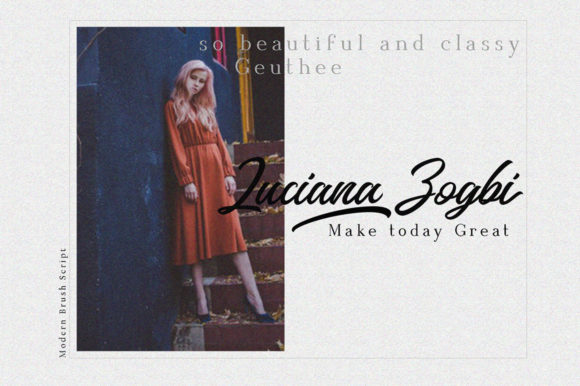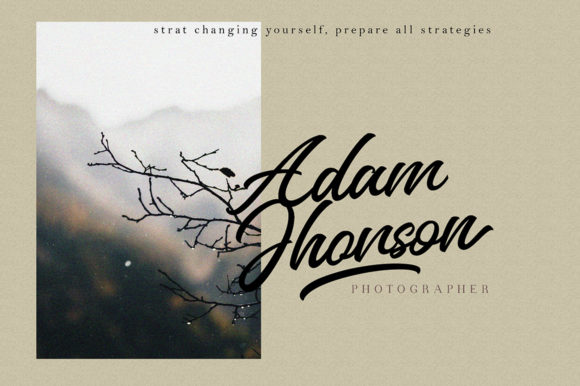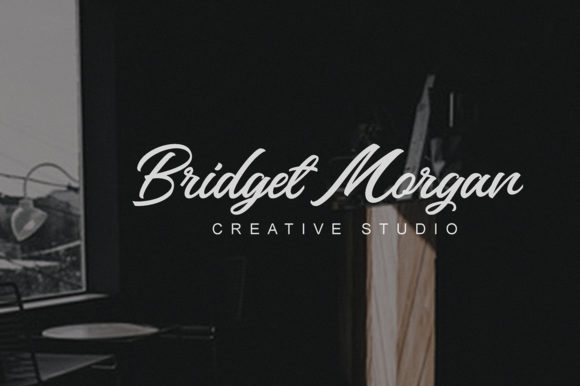
Aotria Font: Elevate Your Designs with Elegance and Sophistication
In the world of typography, fonts play a crucial role in conveying the tone and personality of a design. For designers and crafters looking to add a touch of elegance and sophistication to their work, the Aotria Font is an excellent choice. This striking handwritten font boasts an elegant touch, making it perfect for a wide range of applications, from logos and t-shirts to product packaging, headers, posters, and greeting cards.
The Aotria Font: A Brush Font with a Personal Touch
The Aotria Font is a beautiful brush font that exudes a sense of personality and charm. Its handwritten style gives it a unique and organic feel, making it stand out from more traditional fonts. The elegant touch of the Aotria Font makes it ideal for designers who want to add a touch of sophistication to their work, while its playful nature ensures that it remains approachable and engaging.
What Makes the Aotria Font So Versatile?
One of the key benefits of the Aotria Font is its versatility. This font can be used in a wide range of applications, including:
- Logos: The Aotria Font is perfect for creating elegant and sophisticated logos that make a lasting impression.
- T-shirts: Add a touch of personality to your t-shirt designs with the Aotria Font, which is sure to turn heads.
- Product Packaging: Elevate your product packaging with the Aotria Font, which adds a touch of elegance and sophistication.
- Headers: Use the Aotria Font to create stunning headers that grab attention and draw the reader in.
- Posters: The Aotria Font is perfect for creating eye-catching posters that showcase your message in style.
- Greeting Cards: Add a personal touch to your greeting cards with the Aotria Font, which is sure to make your cards stand out.
Why Choose the Aotria Font?
With so many fonts to choose from, why should you choose the Aotria Font? Here are just a few reasons:
- Unique and Eye-Catching: The Aotria Font is a unique and eye-catching font that is sure to make your designs stand out.
- Elegant and Sophisticated: The Aotria Font boasts an elegant and sophisticated style that is perfect for designers who want to add a touch of luxury to their work.
- Easy to Read: Despite its elegant style, the Aotria Font is easy to read, making it perfect for use in a wide range of applications.
- Highly Versatile: As mentioned earlier, the Aotria Font is highly versatile and can be used in a wide range of applications.
Tips for Using the Aotria Font
To get the most out of the Aotria Font, here are a few tips:
- Use it Sparingly: While the Aotria Font is beautiful, it’s best to use it sparingly to avoid overwhelming the reader.
- Pair it with Other Fonts: The Aotria Font pairs well with other fonts, so don’t be afraid to experiment with different combinations.
- Experiment with Colors: The Aotria Font looks great in a wide range of colors, so don’t be afraid to experiment and find the perfect hue for your design.
In conclusion, the Aotria Font is a stunning handwritten font with an elegant touch that is perfect for designers and crafters looking to add a touch of sophistication to their work. Its versatility, unique style, and ease of use make it an excellent choice for a wide range of applications. Whether you’re creating logos, t-shirts, product packaging, or greeting cards, the Aotria Font is sure to elevate your designs and make them stand out.